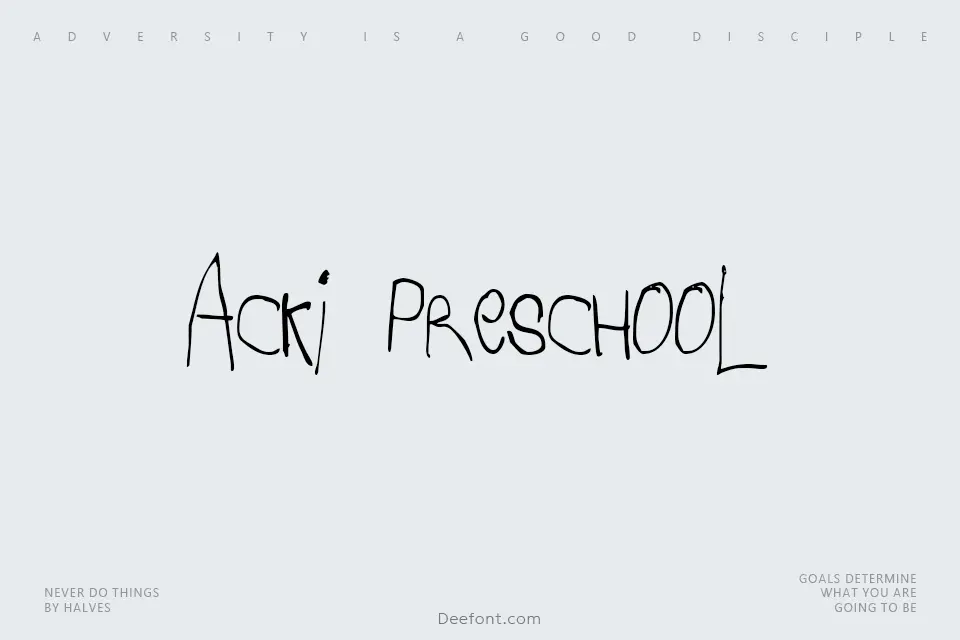
Acki Preschool Font
Acki Preschool is a charming handwritten font that captures the authentic essence of childlike penmanship with its playful, irregular strokes and varying line weight. The typeface features rounded lowercase letters and casual uppercase characters, creating a whimsical aesthetic ideal for children’s books, birthday invitations, educational materials, poster designs, and greeting cards. Its genuine, unpretentious style adds personality and warmth to any design project requiring a youthful, endearing touch. With 81 meticulously designed glyphs, this font delivers consistent childlike charm across diverse typographic applications.